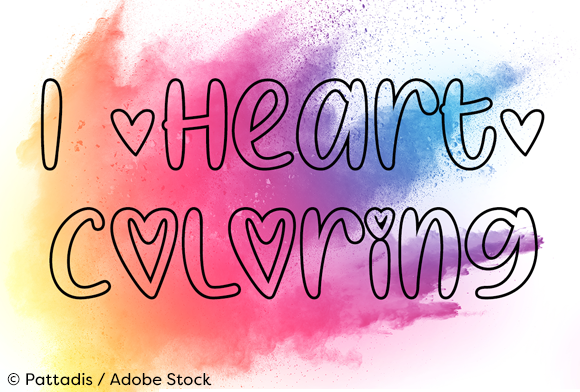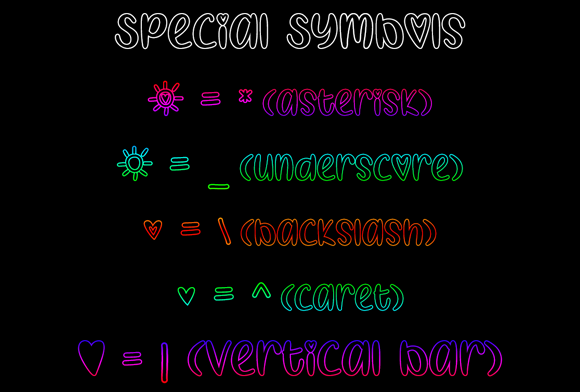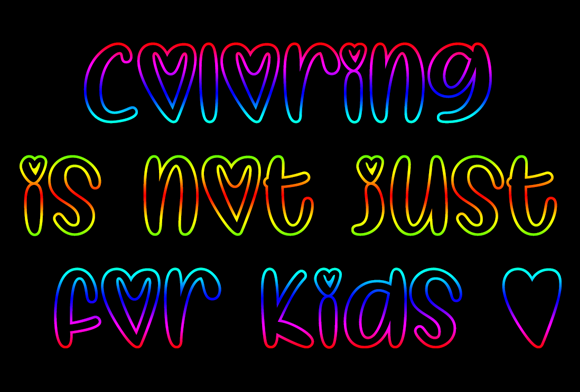
I Heart Coloring Font
About I Heart Coloring Font
I Heart Coloring is a fun, outline font that would be great for coloring books and a variety of other projects!
SPECIAL SYMBOLS
Type * (asterisk) for the sun with heart
Type _ (underscore) for the sun
Type | (vertical bar) for the big heart
Type (backslash) for the small open heart
Type ^ (caret) for the small heart